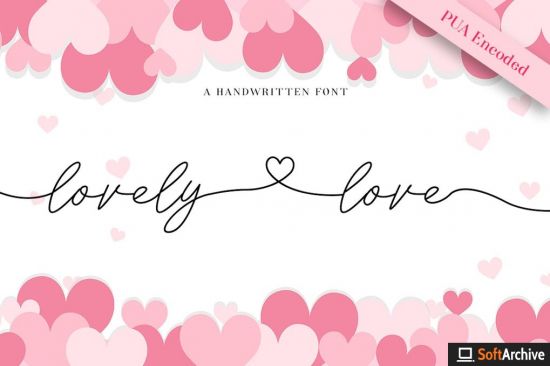
Lovely Love script is perfect font pairing with tails alternates character. Lovely Love script is a modern hand lettering script. It's allowing you to create beautiful hand-made typography in an instant.